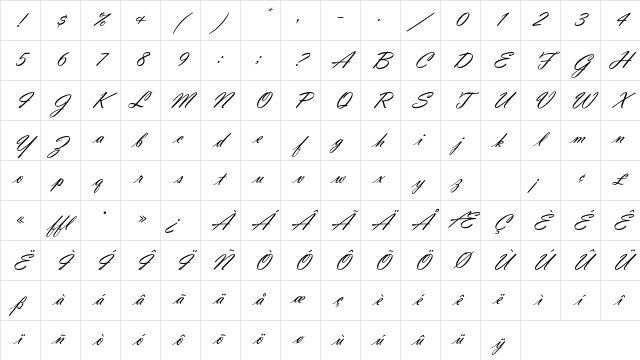
VladimirScriptEF Regular
Design Context for VladimirScriptEF
VladimirScriptEF flows with the natural rhythm of handwritten lettering, making it ideal for designs that call for warmth and personal expression.
Font Pairing: Combine VladimirScriptEF with a simple geometric sans for maximum contrast - the tension between flowing curves and clean structure is a classic typographic pairing.
Pro Tip: Use VladimirScriptEF for short runs of text - names, titles, or taglines. Extended body copy in script faces tires the eye quickly.